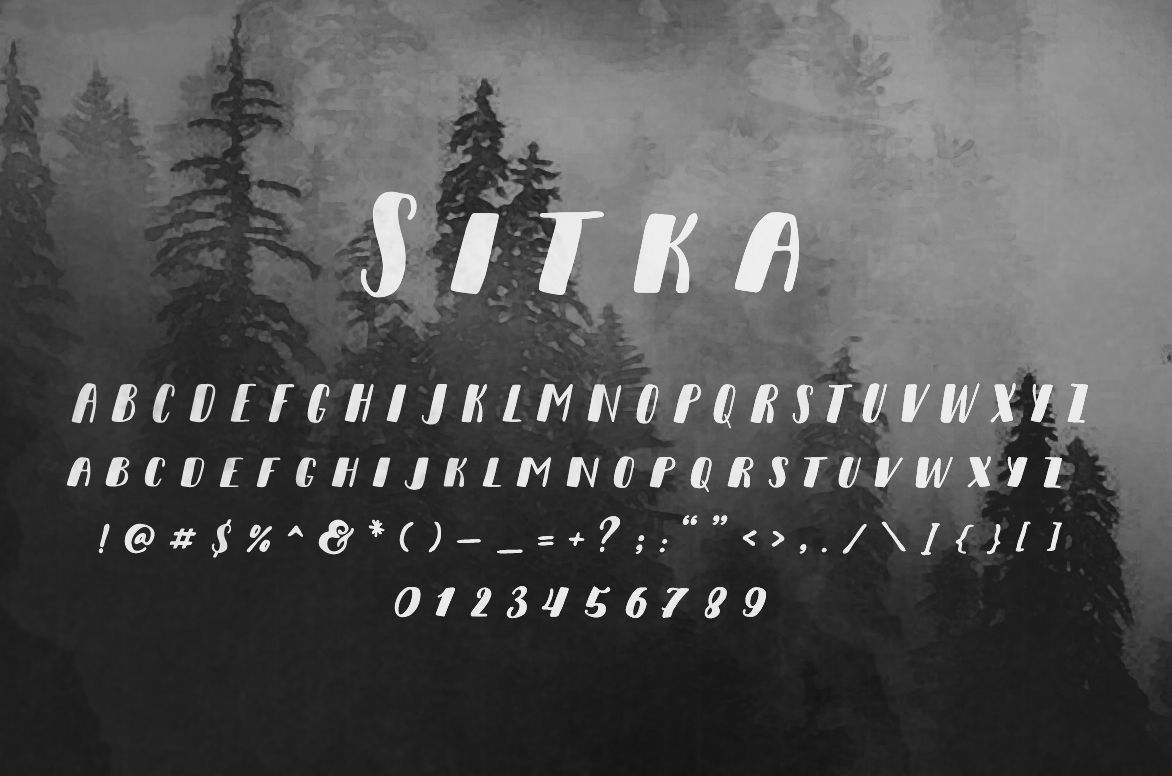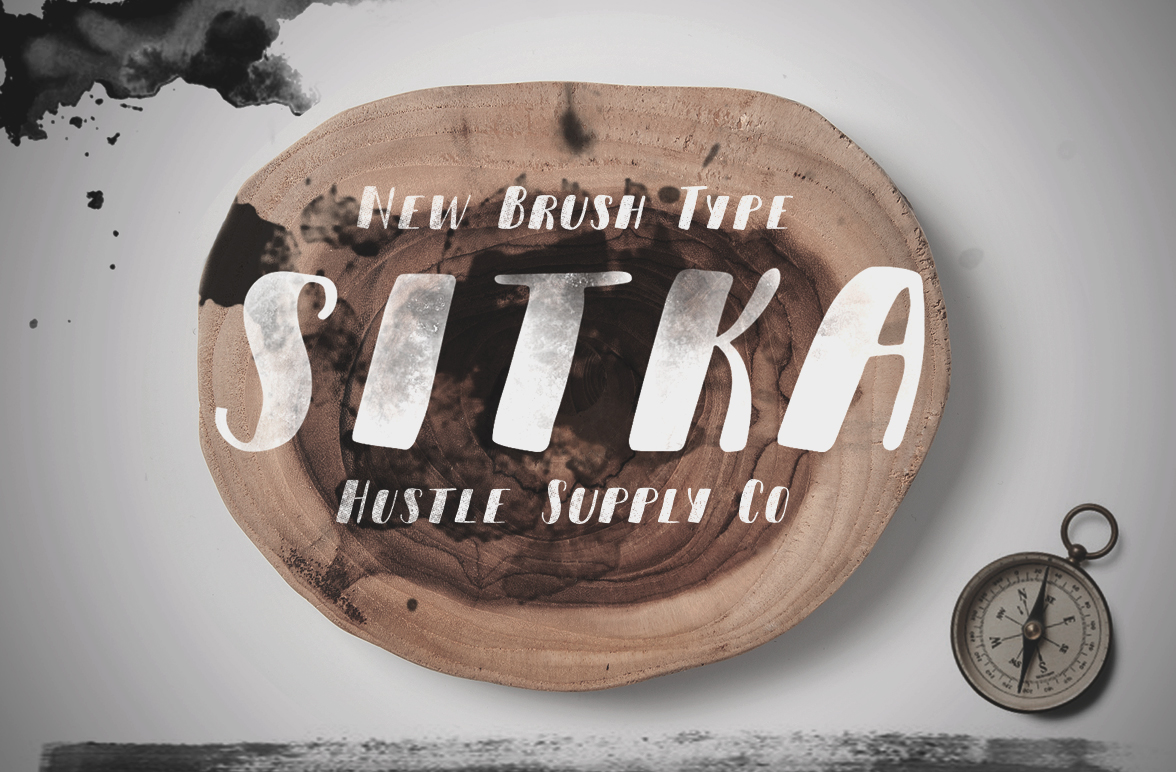
Sitka Brush Font
Sitka brush font falls under the class of the display fonts. This typeface is famous for its bold and italic function and it is also used inside adobe. A clever course of motion for all artists is to check the following font. And present day-day typefaces, as the ones are commonplace free for current business company use.
An entire lot of ailerons font need too many snapshots cleaning up the elements, however, that makes endorse you may discover top options, he says for an identity challenge. Sitka Brush Font Free  The family encompasses every day, ambitious, italic and sharp italic patterns. It hobbies to offer browsers with an immoderate degree of visible assist. It’s available considered in reality considered one in all the type weights.